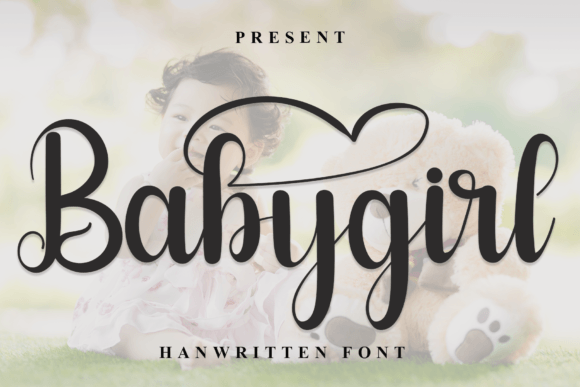
Introducing Babygirl Font, the epitome of elegance and sophistication in the world of script fonts. Created by the brilliant minds at PiPi Creative, this exquisite handwritten font is meticulously crafted to become your ultimate favorite.
With its perfect blend of timeless calligraphic influences and a modern twist, Babygirl Font stands out from the crowd, making it the ideal choice for all your business papers. Whether you're crafting a professional resume, designing a captivating logo, or preparing engaging marketing materials, this font will effortlessly elevate your work to new heights.
Immerse yourself in the sheer beauty of Babygirl Font as each stroke flawlessly dances across the page. Its graceful curves and delicate lines exude a sense of refinement and class, leaving a lasting impression on anyone who lays eyes on your creations.
Capture attention and convey your message with confidence as the captivating charm of Babygirl Font effortlessly draws people in. Its unique style adds a touch of personality to any project, allowing you to showcase your individuality and leave a lasting impact on your audience.
Infuse your designs with emotion and creative energy as you explore the endless possibilities that Babygirl Font has to offer. Its versatility allows it to seamlessly adapt to any concept, from elegant wedding invitations to trendy social media graphics.
Dare to be different and make a statement with Babygirl Font. Stand out from the ordinary and embrace the extraordinary as you unleash your creativity with this one-of-a-kind font.
Don't settle for mediocrity when you can have excellence. Choose Babygirl Font and experience the power of exceptional design.